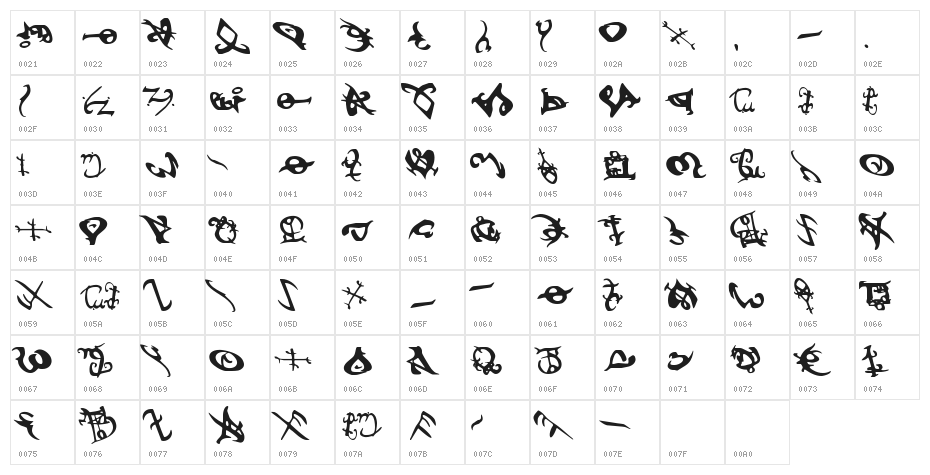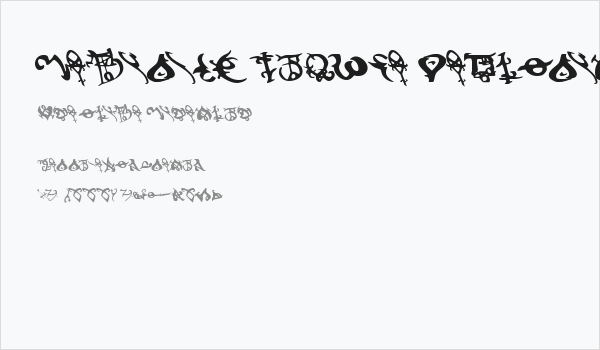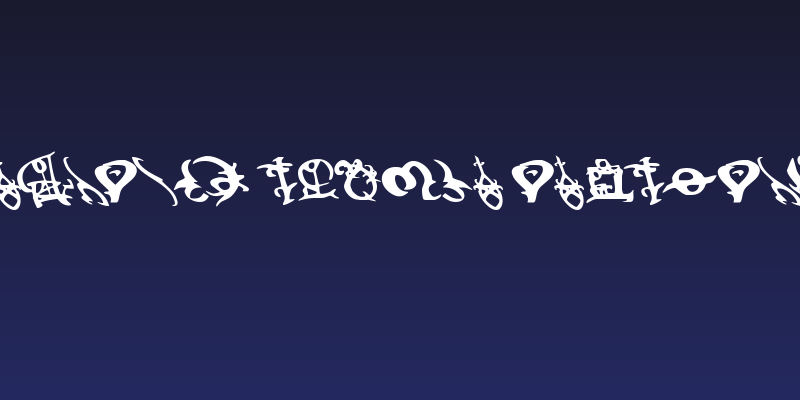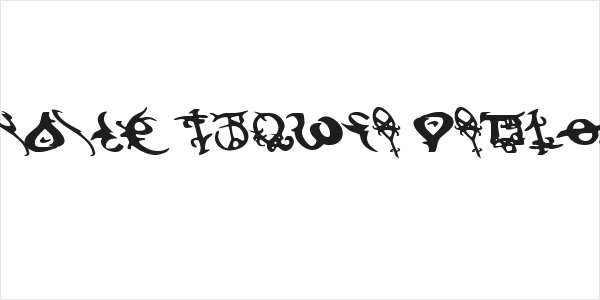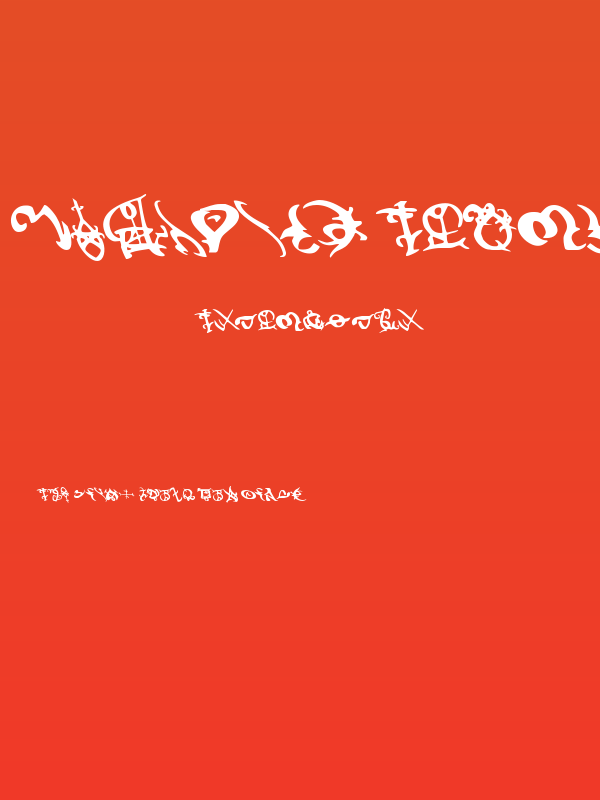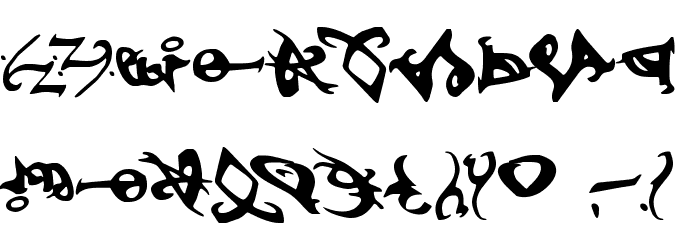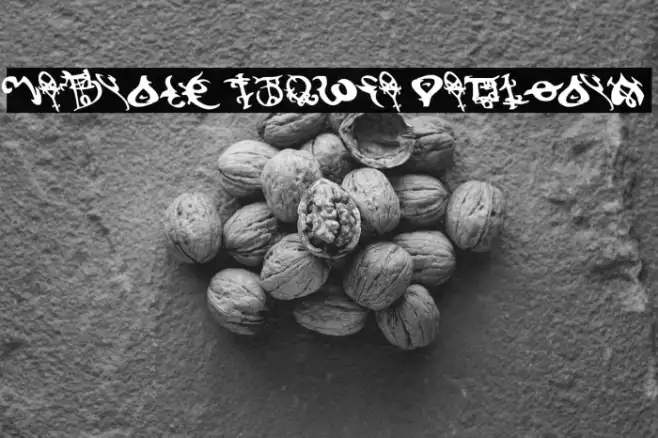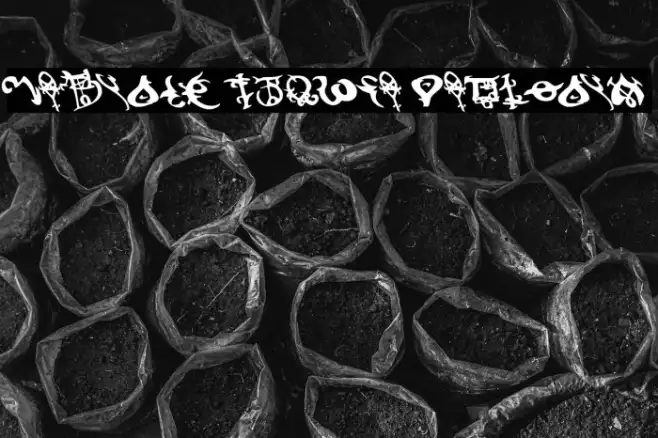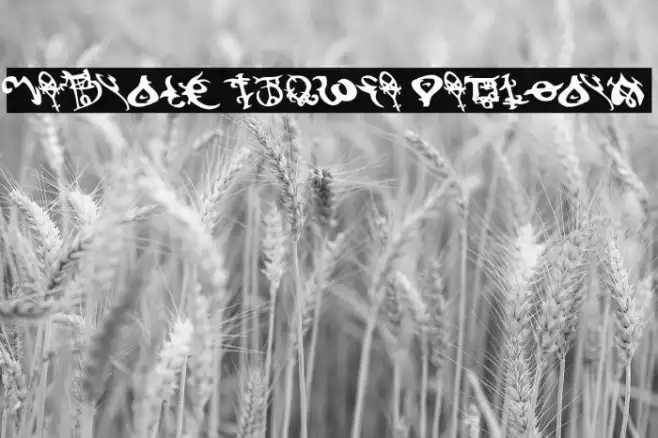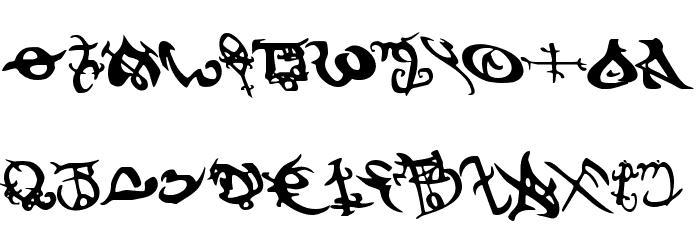
Devil's Tongue Leftalic Font
Devil's Tongue Leftalic Description
This font features a highly decorative and abstract style, with each character exhibiting intricate and swirling designs. The letters are heavily stylized, with exaggerated curves and sharp angles that create a sense of movement and complexity. The font has a mystical and otherworldly appearance, making it stand out as a unique choice for creative projects. The characters are densely packed with artistic flourishes, giving the font a bold and dramatic presence. Its unconventional design makes it suitable for projects that require a distinct and eye-catching aesthetic.
| Use Case | Logos, Posters, Album Covers |
| Proposed Projects | Ideal for fantasy-themed designs, album covers, posters, and branding that requires a mystical or otherworldly touch. |